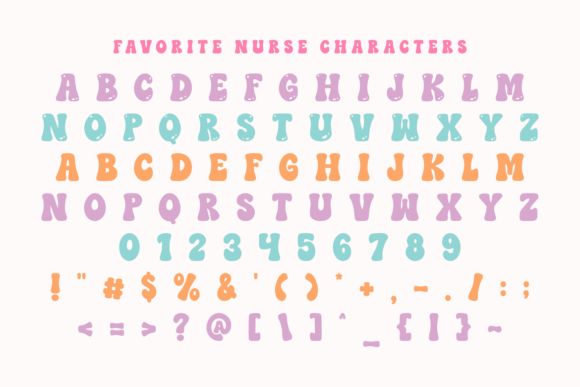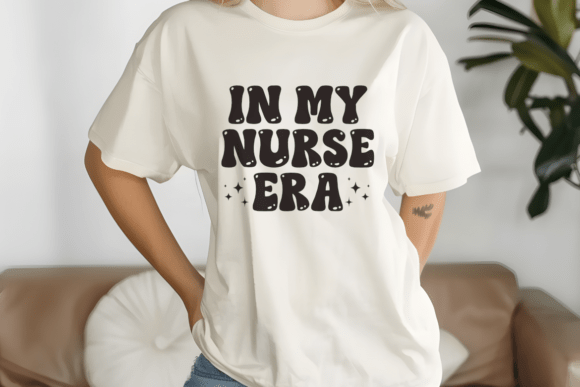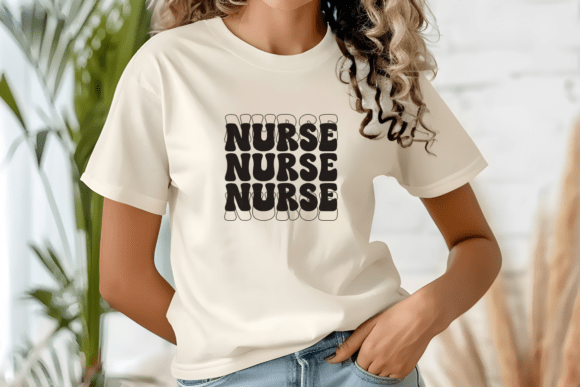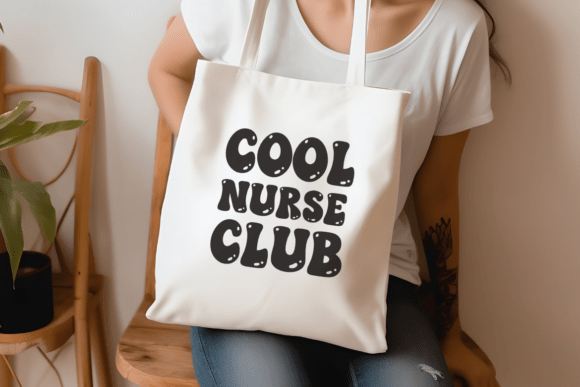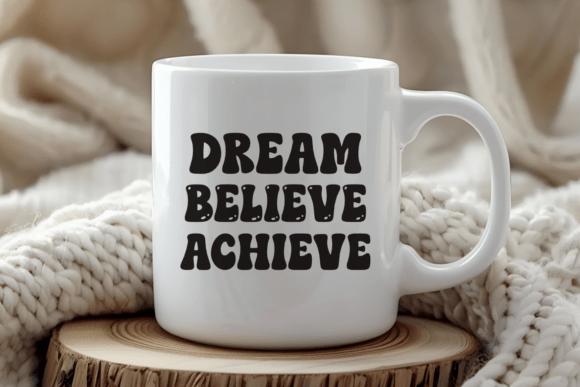
Introduction to Favorite Nurse Font
Favorite Nurse is a bubbly, playful, and cheerful display font inspired by the vibrant, groovy aesthetic of the 70s, perfectly blended with a kind-hearted, appreciative theme dedicated to healthcare heroes.
Its smooth, rounded letters and cute, stylized curves create an instantly uplifting and friendly vibe This font is essential for creators targeting the Healthcare Appreciation, Medical Profession, and general Gift markets in craft, POD (Print On Demand), and DIY.
Key Features of Favorite Nurse Font
Why Choose Favorite Nurse Font?